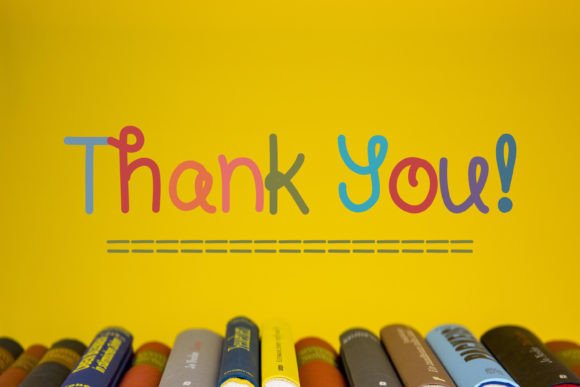
Introduction to Mimiti Font
As you sit in front of your computer, brainstorming ideas for your next creative project, you suddenly stumble upon the perfect font. It’s playful, whimsical, and instantly conveys the tone you’re going for. For many designers, this moment is pure magic. And for those looking to add a dash of cuteness to their designs, the Mimiti Font is sure to be the perfect companion.
This adorable handwriting font has taken the design world by storm, and for good reason. Its high-quality design and transparent background make it a versatile resource that can be used in a variety of contexts, from printed quotes to digital designs. Whether you’re working on a children’s product or a poster for a fun event, the Mimiti Font is sure to add a touch of personality to your design.
Key Features of Mimiti Font
- High-quality design resource ideal for creative projects, including digital art and print materials.
- Transparent background, making it easy to layer over images or other design elements.
- Comes in a range of font sizes, from 12pt to 72pt, providing flexibility for various design needs.
- Resolution: 300 DPI, suitable for both online and offline use, including high-resolution print materials.
- Unique characteristics include a playful, cursive script style and a wide range of ligatures for a natural, handwritten feel.
- Suitable for a variety of design projects, including logos, typography-based art, and creative writing.
Honest Review: Mimiti Font
I recently came across the Mimiti Font, and I must say it’s a high-quality addition to any designer’s toolkit. One of the standout features is its transparent background, making it perfect for creative projects where a clean and minimalist look is desired.
- High-quality design: The Mimiti Font looks sleek and modern, making it a great choice for any creative project.
- Transparent background: This feature makes it easy to layer the font over other design elements, giving you more flexibility in your design.
- Limited character set: The font only includes a limited character set, which may not be suitable for projects that require a wide range of characters.
- No bold or italic styles: While the font looks great in its standard weight, it would be nice to have bold and italic styles available for added emphasis.
Overall, I’m impressed with the Mimiti Font and would definitely recommend it to fellow designers. It’s a great addition to any design resource library, and its transparent background and high-quality design make it a valuable tool for any creative project.
The Mimiti Font is a versatile design resource that can be used in a variety of creative projects, such as logos, branding materials, and social media graphics. Its high quality and transparent background make it a great choice for any project that requires a clean and modern look.
Getting the Most Out of Mimiti Font
To get the most out of the Mimiti Font, be sure to use it in conjunction with other design elements that complement its unique style. You can also experiment with different font sizes and colors to create a visually appealing design.
Alternatives to Mimiti Font
The Great Vibes Font is a high-quality, handwritten font that is perfect for creative projects requiring a touch of elegance and sophistication. It’s ideal for use on invitations, quotes, and other design elements that need a personal touch. When compared to Mimiti Font, Great Vibes Font has a more refined and polished look, making it suitable for formal events and professional applications.
Is the Mimiti Font available in different weights and styles?
Yes, the Mimiti Font is available in various weights and styles, including bold, italic, and regular. You can choose the weight and style that best suits your creative project’s needs. The font’s versatility makes it an excellent choice for designers working on high-quality projects that require a unique and professional look.